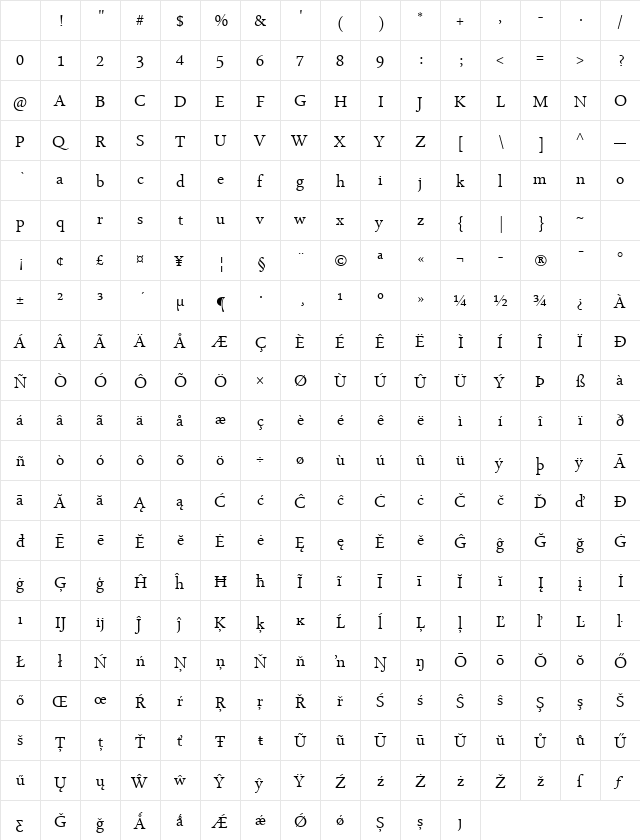
Complete Arabic Typesetting Balochi Normal glyph index. Displaying only characters natively supported by Arabic Typesetting Balochi Normal font.
Arabic Typesetting Balochi is a composed and adaptable typeface that performs quietly and consistently across a wide range of design contexts.